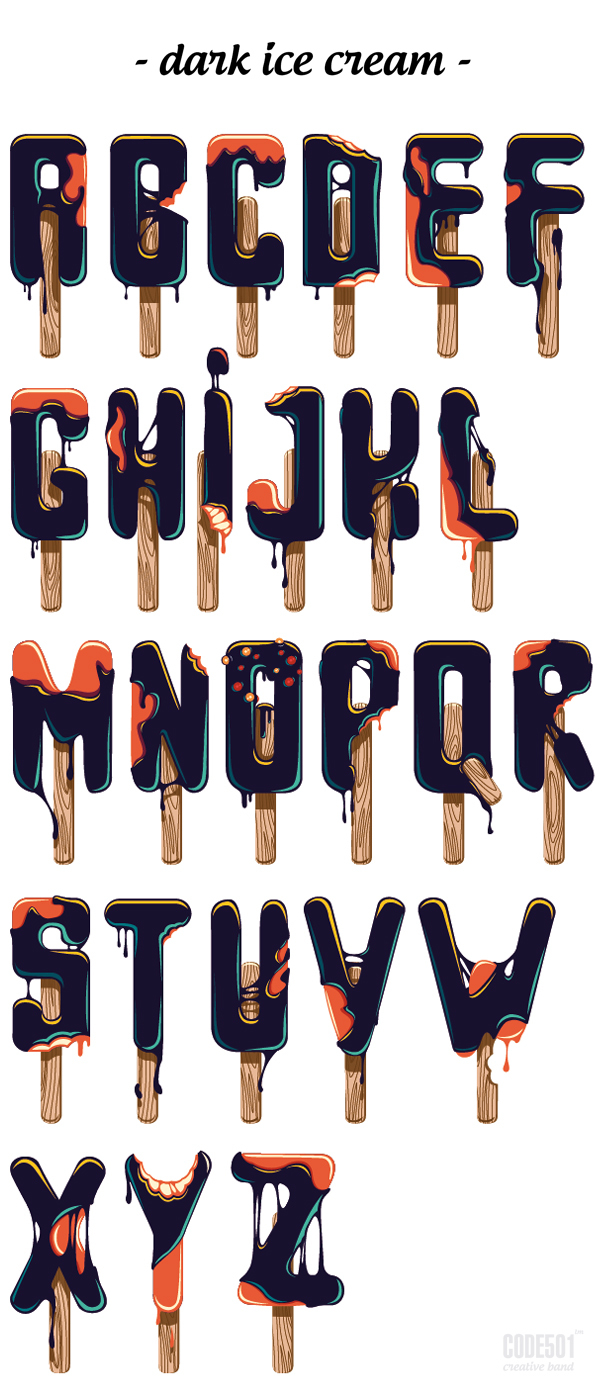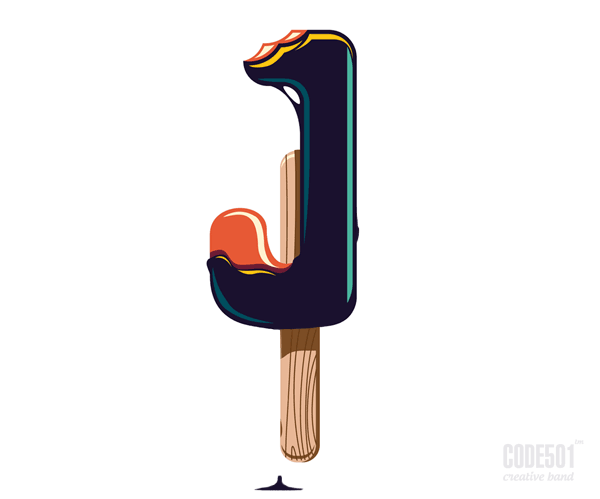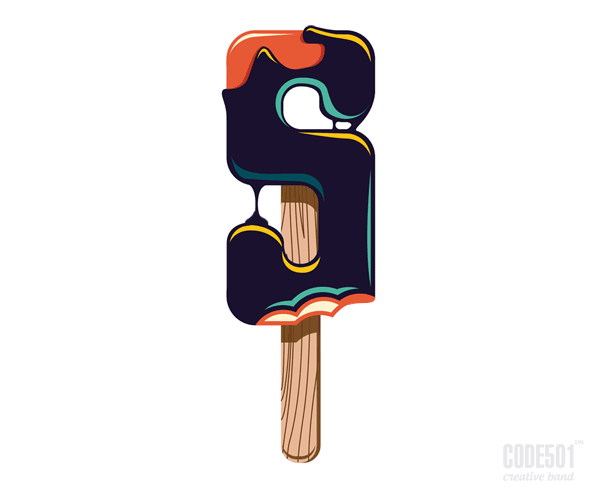
Dark Ice Cream – illustration and animation project.
Sergey Ermakov and Olesya Poplavskaya are two Yekaterinburg, Russia based graphic designers and illustrators of studio CODE501. They teamed up to create this very special typeface called “Dark Ice Cream”. It’s a creative project with the aim to explore connections between the structured form of a font in combination with an illustrative style. But that’s not all, they also developed some nice animations based on this illustrated typeface.
I think these illustrated popsicle letters would fit very well for the signage of an ice cream parlor restaurant and the animations could be used for the web presentation. Below you can see the entire alphabet from A to Z of this “Dark Ice Cream” typeface as well as some of the letter animations.